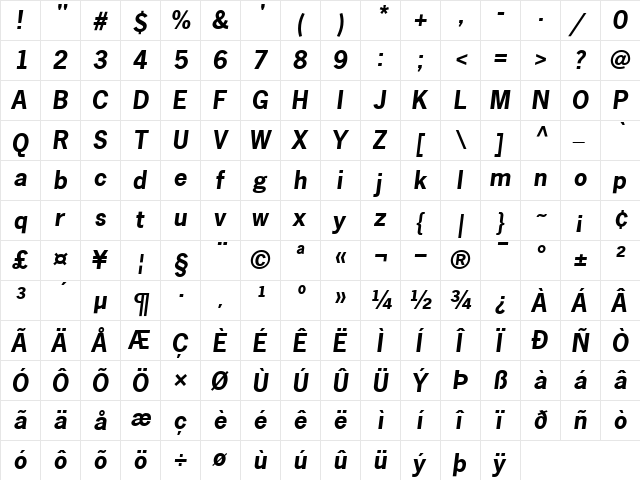
NewsGothic BoldItalic Font Preview
NewsGothic BoldItalic
NewsGothic BoldItalic Font Details
Design Context for NewsGothic Typeface
NewsGothic has the quiet confidence of well-executed sans-serif typography: versatile, unobtrusive, and dependable at any size. Its italic angle brings a sense of urgency and motion to the letterforms. The heavy weight commands attention and anchors typographic hierarchies.
Well-suited to navigation labels, product packaging, and anywhere legibility at scale is essential.
Font Pairing: Use NewsGothic for headlines alongside a lighter-weight sans or serif for body copy to establish clear visual hierarchy.
Pro Tip: Use NewsGothic for UI labels, navigation, and short-form body copy where clean legibility is the priority.